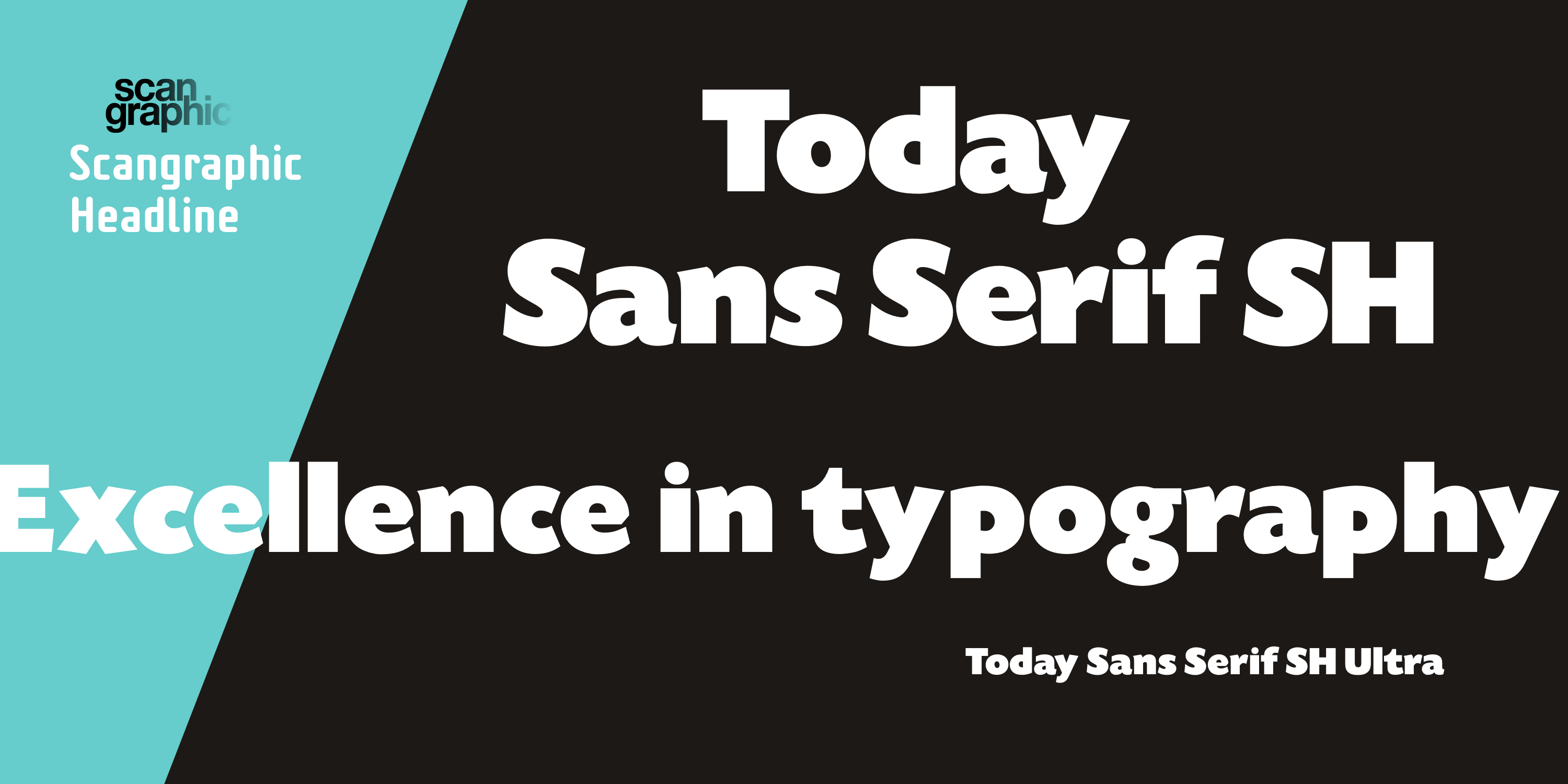
Today Sans Serif SH Font is perfect for modern news publications, contemporary digital platforms, current affairs magazines, today's corporate presentations, modern lifestyle branding, contemporary advertising campaigns, present-day social media graphics, and timely design projects that require current typography with today's relevance character and contemporary communication sophistication.
This Today Sans Serif SH Font is exciting because it embodies the spirit of contemporary communication and present-day relevance with clean, modern letterforms that reflect today's digital age and current design trends, featuring up-to-date character construction that conveys immediacy while maintaining exceptional readability for modern applications and contemporary communications.
The Today Sans Serif SH Font family includes contemporary weights with modern styling, complete character sets with current uppercase and lowercase letters, today's numerals, modern punctuation, and contemporary symbols that provide comprehensive typography solutions for current and modern design projects requiring authentic present-day aesthetics and contemporary appeal.
Perfect for creating relevant modern communications and contemporary brand identities, Today Sans Serif SH Font Free Download delivers the current typography that transforms text into powerful expressions of today's communication and contemporary excellence. This distinctive typeface captures the essence of present-day design and modern relevance, making it essential for projects celebrating contemporary culture, modern communication, current trends, and any design requiring timely character with authentic modern sophistication and contemporary appeal that speaks to today's audiences with clarity and relevance.